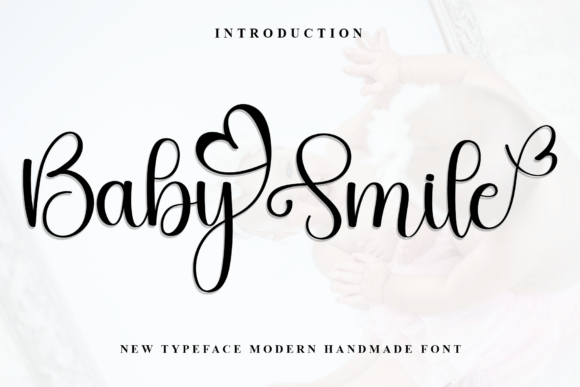
The Birth of a Masterpiece: Unveiling the Baby Smile Font
Do you ever find yourself staring at a blank canvas, waiting for that spark of creativity to ignite? For many designers, that moment is a thrilling feeling that can lead to something truly extraordinary. It’s a moment when the perfect font can make all the difference, and that’s exactly what we’re about to explore – the enchanting Baby Smile Font.
This beautiful and attractive font is a treasure trove of design possibilities, boasting distinct and well-balanced letters that will captivate your audience. With its incredibly versatile style, the Baby Smile Font is the perfect addition to any design project, whether you’re creating a charming logo, a stunning advertisement, or a heartwarming greeting card.
Baby Smile Font Key Features
- Character Count: The font includes over 500 characters, including letters, numbers, punctuation marks, and special symbols, making it suitable for various applications.
- Unique Characteristics: This font features a unique, playful design with rounded edges and a friendly smile, making it ideal for children’s products, educational materials, and other applications where a cheerful tone is desired.
- Font Style: The font comes in a single style, but it can be easily customized using font editing software to create different variations and effects.
Baby Smile Font Review
Overall, I think the Baby Smile Font is a cute and playful font that can add a touch of whimsy to any design project. Here are some things that work well:
- ✨ Unique character design: The font features adorable, smiling characters that are sure to bring a smile to anyone’s face.
- ✨ Versatility: Baby Smile Font can be used for a variety of projects, from children’s books to advertisements and beyond.
- ✨ Easy to read: Despite its playful nature, the font is still easy to read and understand, making it a great choice for projects that require clear communication.
- ⚠️ Limited character set: The font only includes a limited set of characters, which may make it difficult to use for projects that require a wide range of characters.
- ⚠️ Not suitable for serious projects: Due to its playful nature, Baby Smile Font may not be the best choice for projects that require a more serious or professional tone.
In terms of overall impression, I think the Baby Smile Font is a fun and creative choice for designers who want to add a touch of whimsy to their projects. While it may not be suitable for every project, it’s a great option for designers who want to stand out and add some personality to their work.
The Baby Smile Font is ideal for:
- Infant and toddler product labels.
- Children’s book illustrations and typography.
For the best results, use the Baby Smile Font in combination with bright and pastel colors to create a playful and whimsical atmosphere.